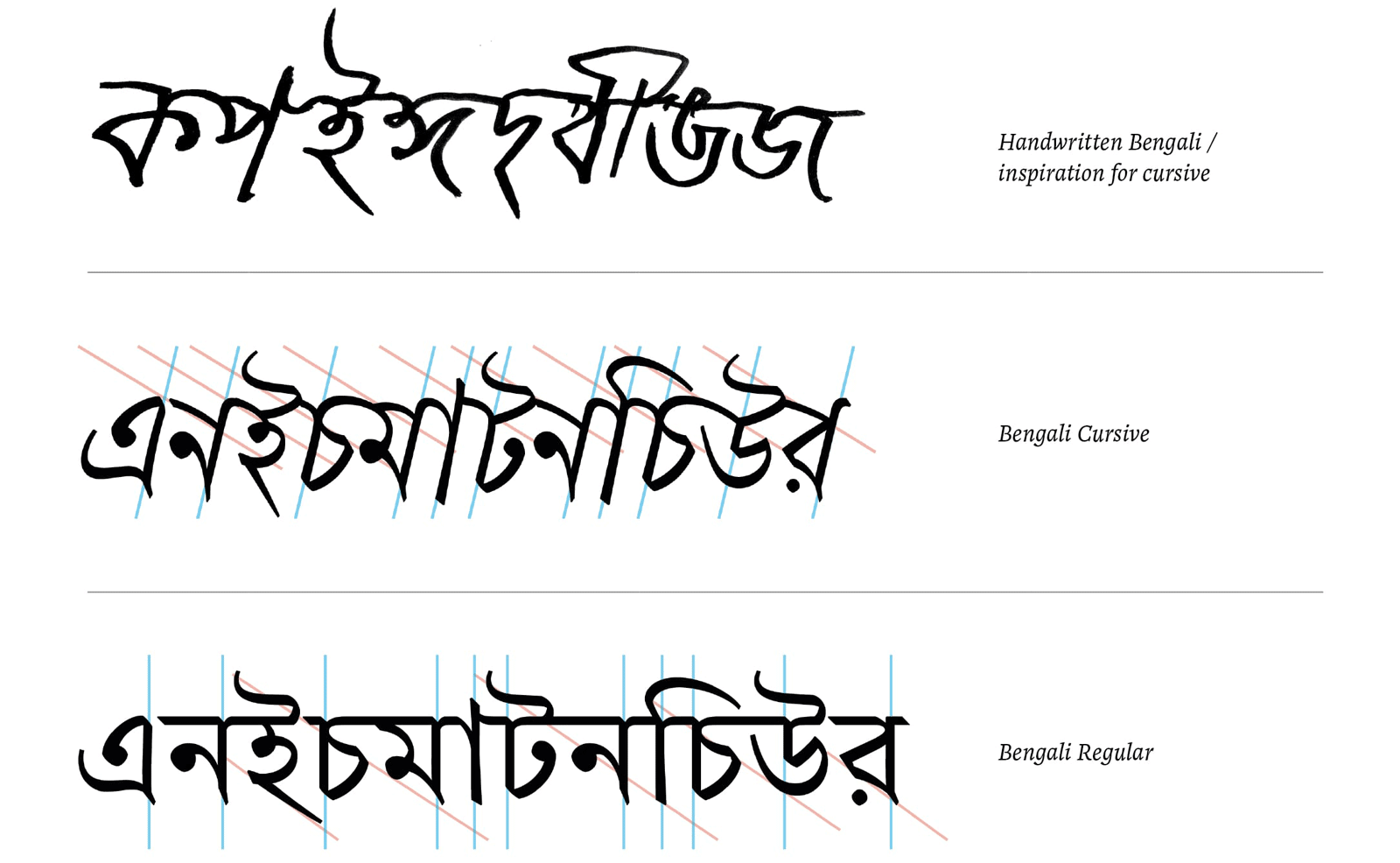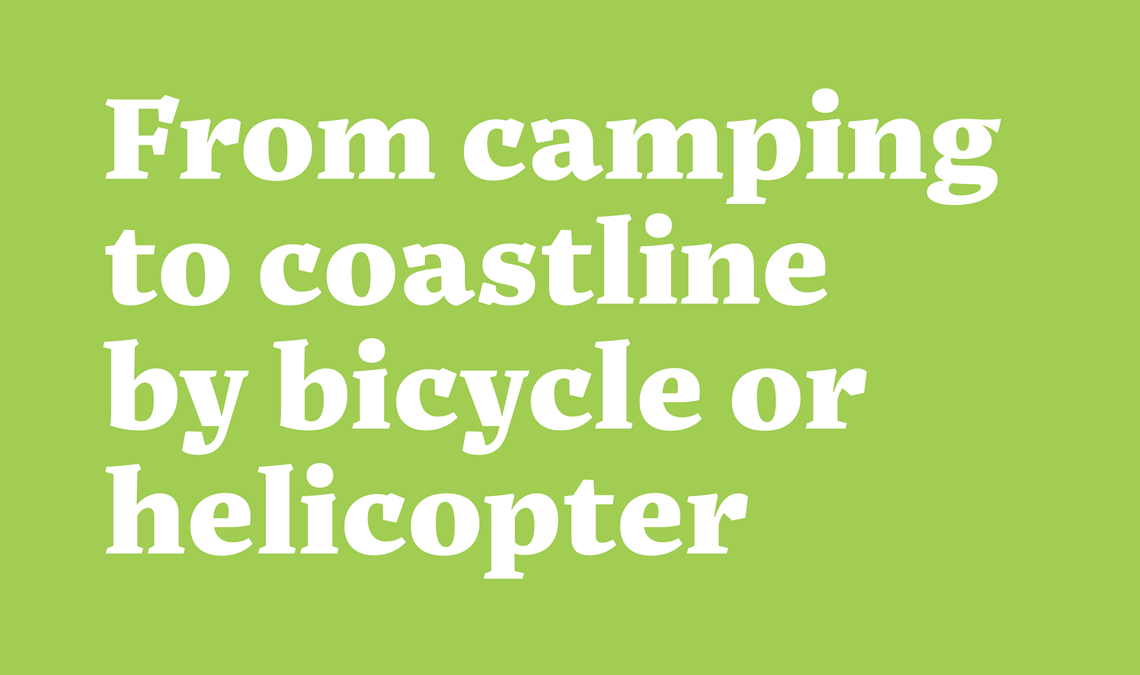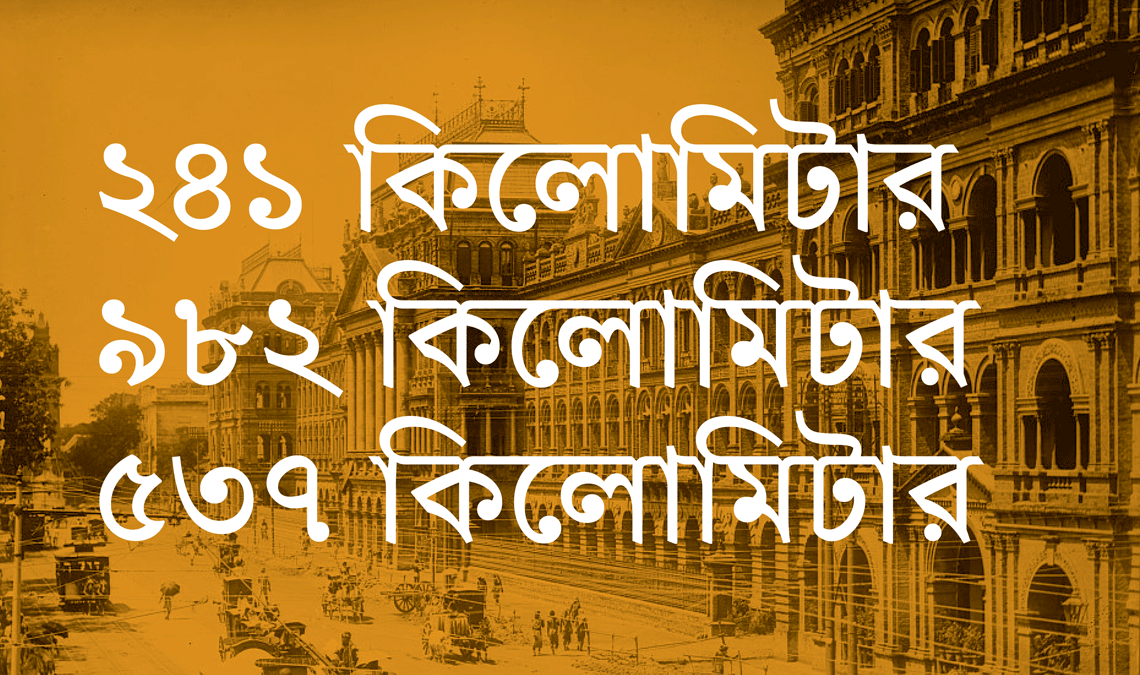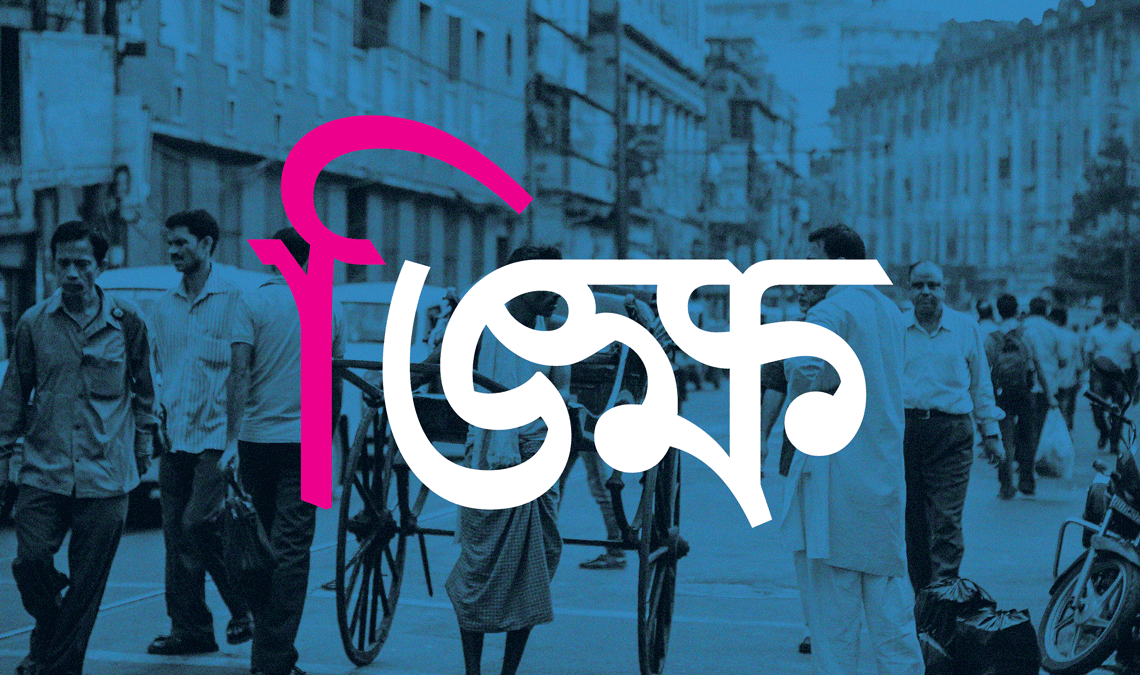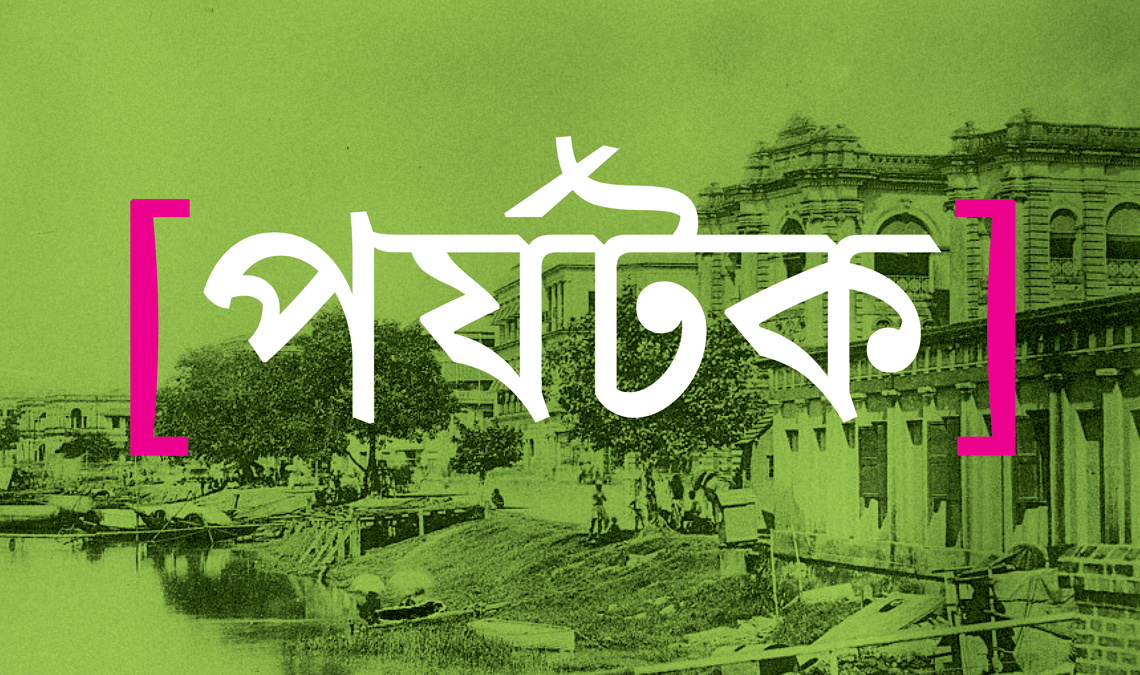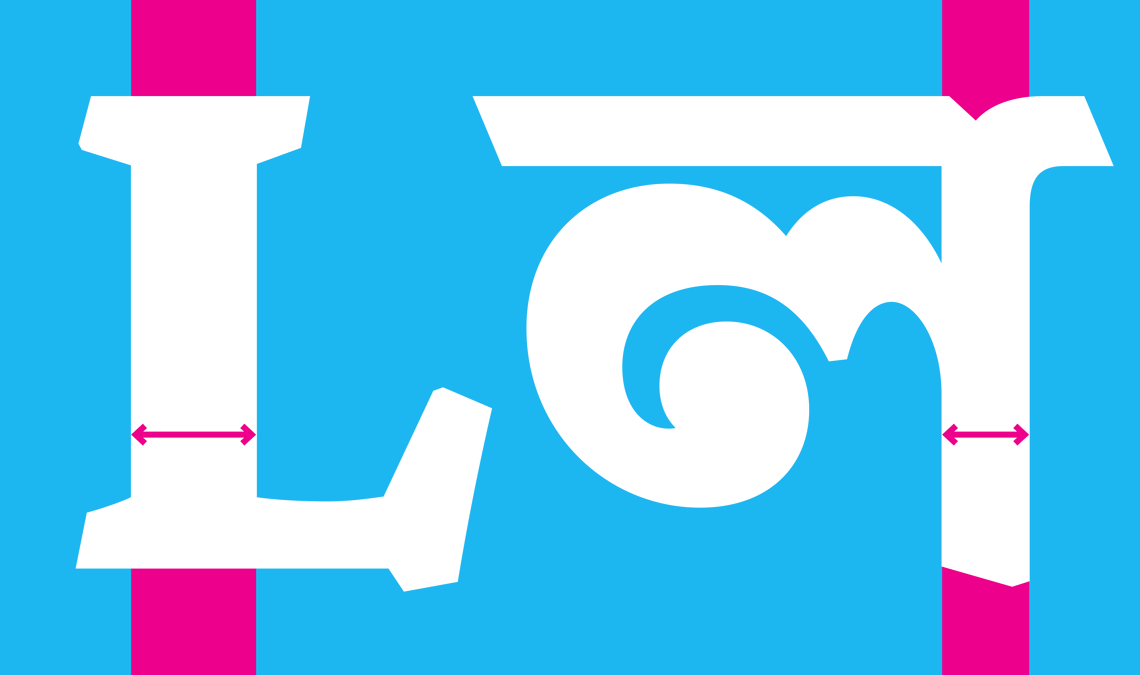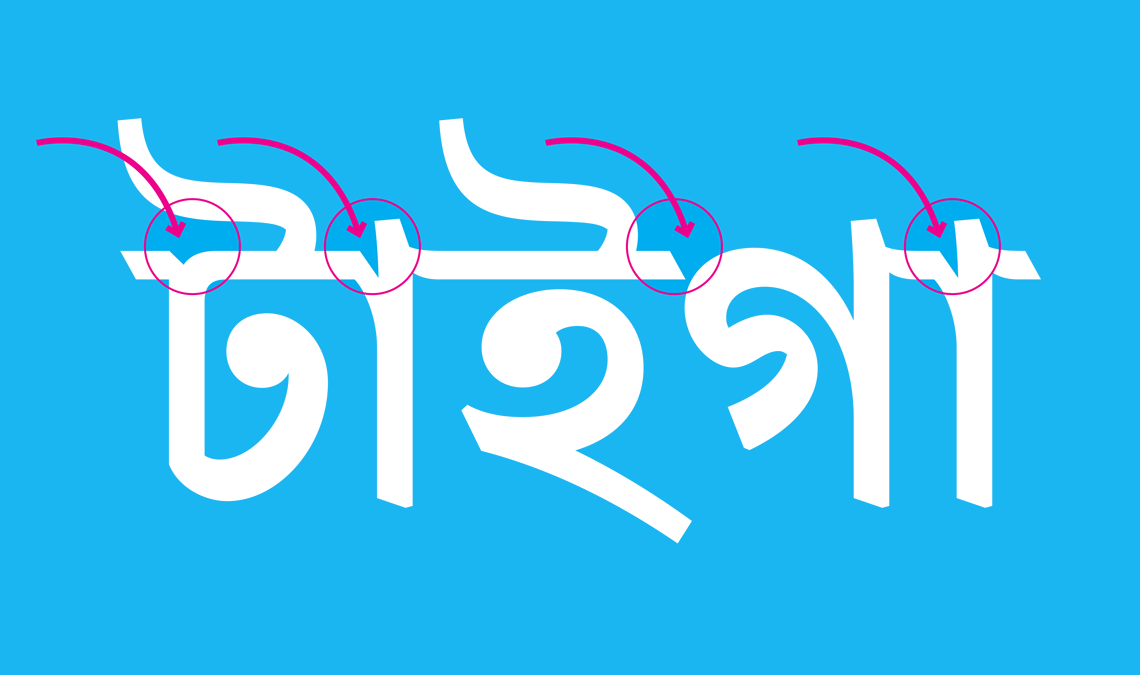
Noort Bengali: confidence across two scripts,
Years in the making, Juan Bruce’s Noort Bengali is a dynamic and energetic Bengali text typeface, and TypeTogether’s very first step in supporting this script. Read on to learn how Noort Latin got a Bengali companion and what to expect from this dual-script design.
Chilean designer Juan Bruce has been associated with TypeTogether since 2016, when he was selected for the second Typeface Publishing Incentive Programme (now known as the Gerard Under ScholarshipGerard Unger Scholarship). Next year saw the release of his typeface Noort, a serif font family influenced by 17th century Dutch maps, which went on to win the TDC Award of Excellence. Since then he has added a display weight to the family and a suite of cartographic icons, but this is Noort’s largest extension yet — a companion Bengali typeface family, which also happens to be TypeTogether’s first foray into the script.
Noort has its beginnings in Juan’s time at Reading University’s MA in Typeface Design programme. He imagined it as a multiscript project from the start, with Latin, Greek, and Bengali components. Juan was attracted to Bengali, a script he had been unfamiliar with until then, because of its unique texture. Bengali is one of the most popular scripts in the Indian subcontinent and is used by languages spoken by over a quarter billion speakers in the region, as well as expats elsewhere in the world.
Unlike Latin, its letterforms have a large number of diagonals with different starting and ending points, something that caught Juan’s eye. This is complemented by vertical stems that hang from a horizontal headline. The multidirectionality of strokes, matched with the flourishes in the letterforms and their traditional ball-like terminals, creates a lively interplay of black and white to which Juan was immediately attracted. While at Reading he not only sowed the seeds for an upright Bengali design with Noort’s DNA, but also experimented with a cursive counterpart which sought to capture the rhythm of handwriting in typographic form.
After the drawings of Noort Bengali fell into place, there was still much to be done to make the typeface functional. Indic scripts need a cooperative approach to drawing and devising OpenType features to ensure that a typeface is compactly made and also meets the rigours of typesetting. So Noort Bengali was completed in a truly collaborative fashion, with engineering support for Bengali from TypeTogether’s Pooja Saxena. Working across time zones (Juan and Pooja live nine hours apart), especially during a pandemic, was challenging but they persevered and couldn’t be happier with the result.
I never would have guessed that I would develop an interest in different scripts, but looking back I realise I was always interested in cultures, travel, and diversity in general.
Speaking together
Juan’s approach for this design was to harmonize the two scripts while maintaining a degree of independence from each other in order to honour their different origins, cultures, and history. The Bengali does not try to replicate the style of the Latin, but instead picks up on the influence of the hand in the design and interprets that using its own visual vocabulary. Noort Bengali’s interrupted headline is a nod to calligraphy, lends the design an active texture, and echoes the design of its Latin counterpart.
The most challenging aspects of harmonising Latin and Bengali within Noort’s overall design was weight matching. Stroke thickness is not transferable between Latin and Bengali because shapes are more complex in the latter. This makes each Bangali letter busier, and if one were to apply the same weight to them as the Latin, the result would be heavier, awkward Bengali letterforms. This weight imbalance between the two scripts was meticulously worked out in Noort Bengali using optical adjustments and decreasing stroke weight as necessary.
The issue reared its head not only while working between scripts, but also within the same weight of the Bengali design and across all the weights together. Bengali conjuncts are more intricate than the basic conjuncts and vowels, and thus required further refinement. And the heaviest weight, the Extrabold, was a test in tuning forms and counterforms to create legible and hefty Bengali letters that retained the gestural tension that makes Noort distinctive
A typographer’s dream
Noort Bengali contains both Bengali and Assamese letters, and comes along with the family’s Latin glyph repertoire, making it an ideal typeface family for multiscript and multilingual projects. It offers typographic finesse in Bengali thanks to a wide range of conjuncts, and specially-designed vowel signs matched according to width.
It also comes with a set of punctuation marks designed to work seamlessly with Bengali letterforms, keeping in mind their headline, as well as marks below and above the primary character. Whether in books or magazines, in print or on screens, the text weights of Noort can bring subtle drama to long passages, while its heavier weights are showstoppers in display sizes.
Noort icon substitution.
Five matched weights allow for the designer to build deep hierarchies. Niceties like proportional and tabular Bengali numerals and a large collection of cartographic and wayfinding icons are means to achieve sophisticated results. Luckily we have coded the icons in such a way to make them an automatic substitution. As with the example below, just type the name of the icon and choose the alternate to replace the word with the stylised icon.